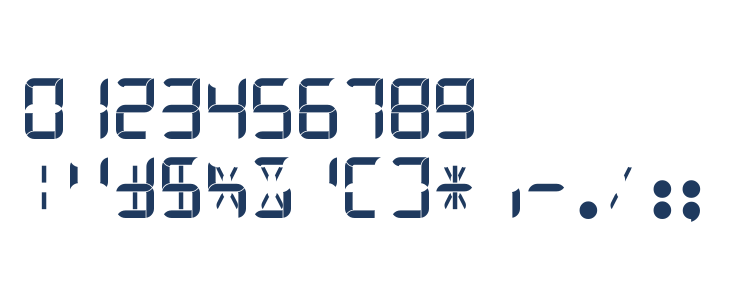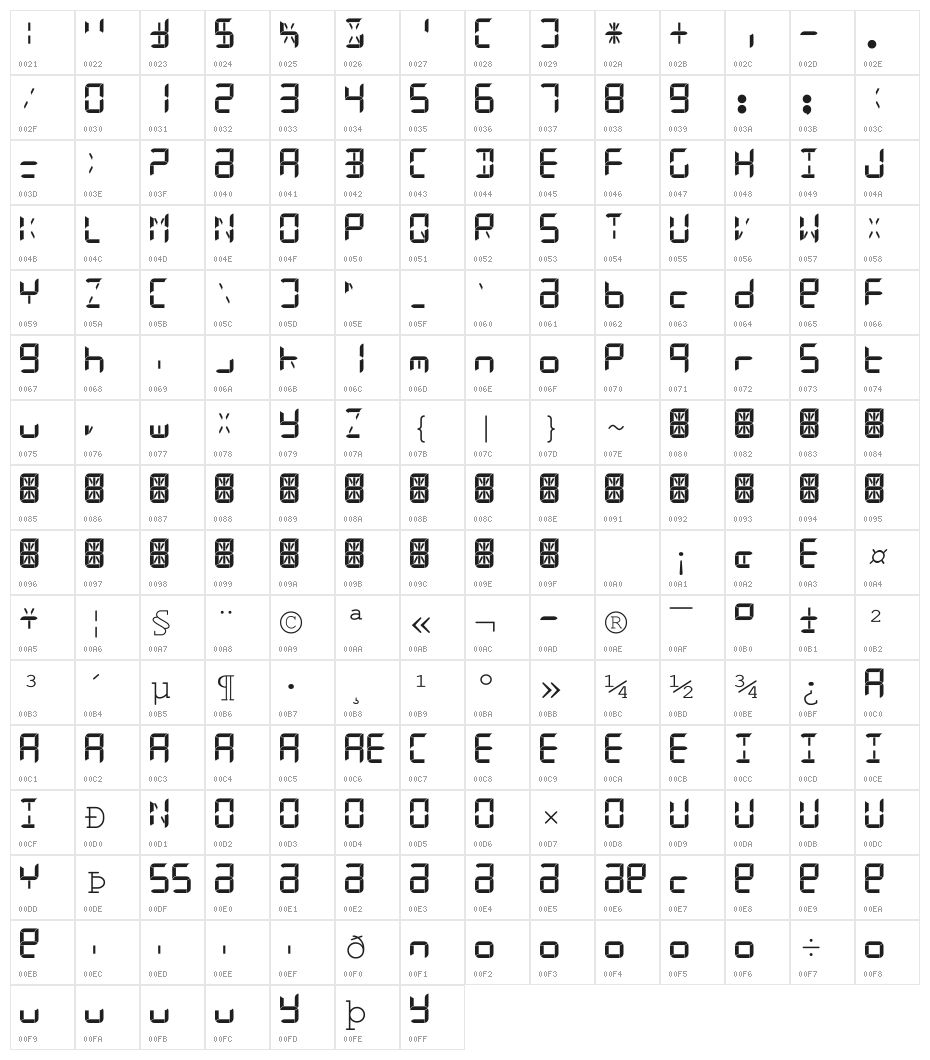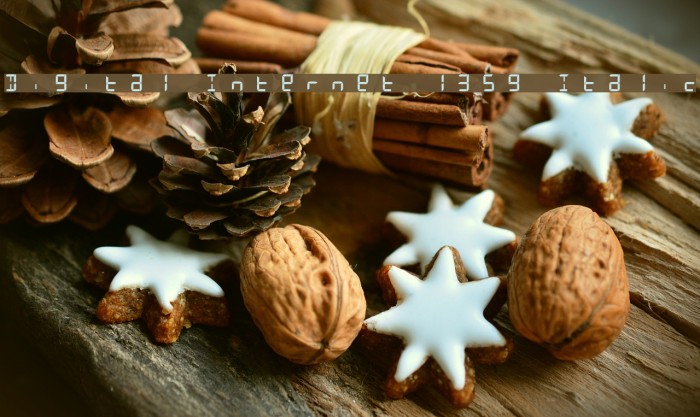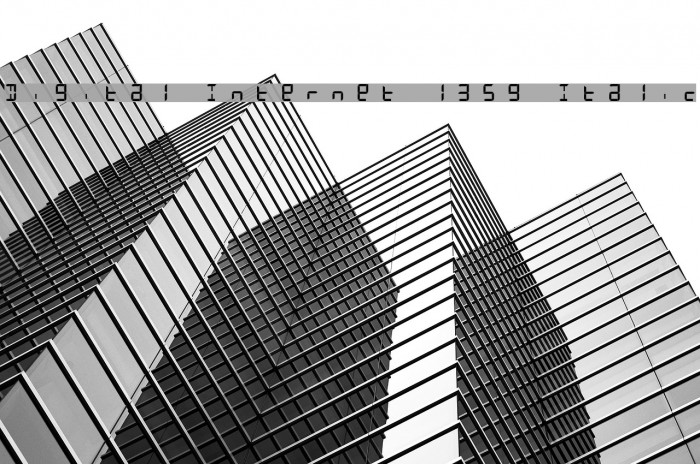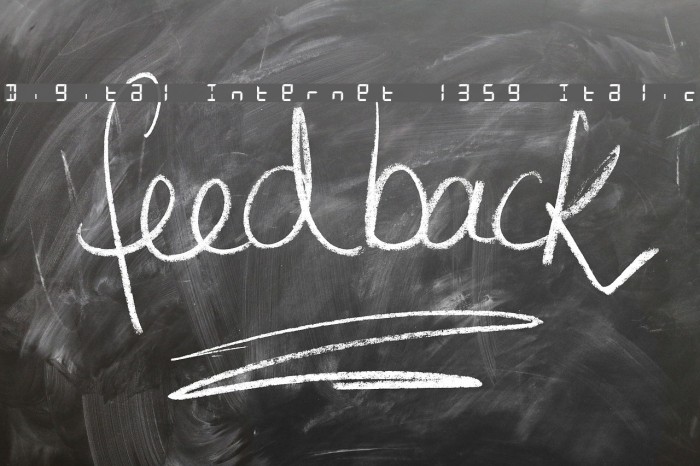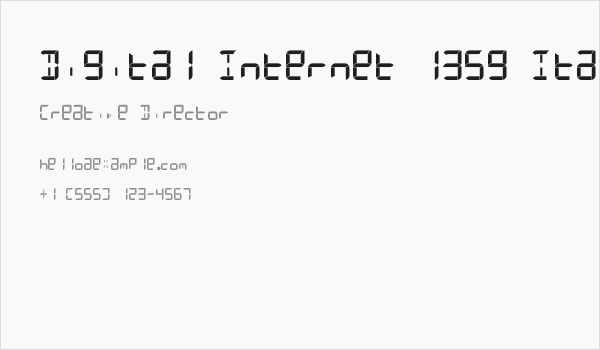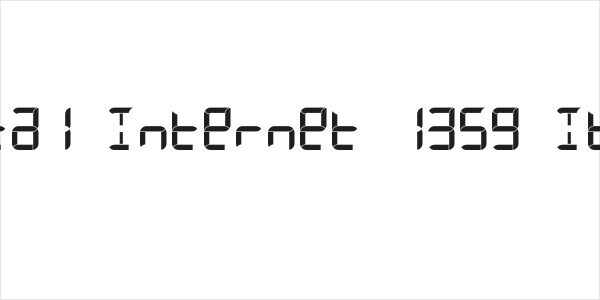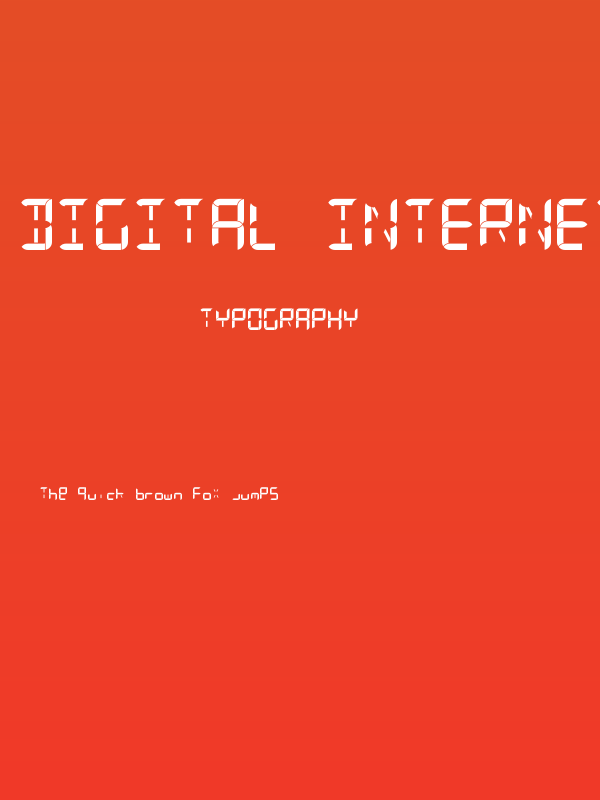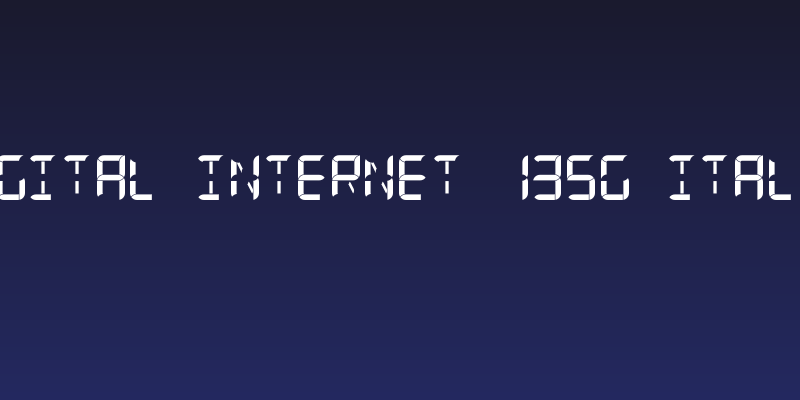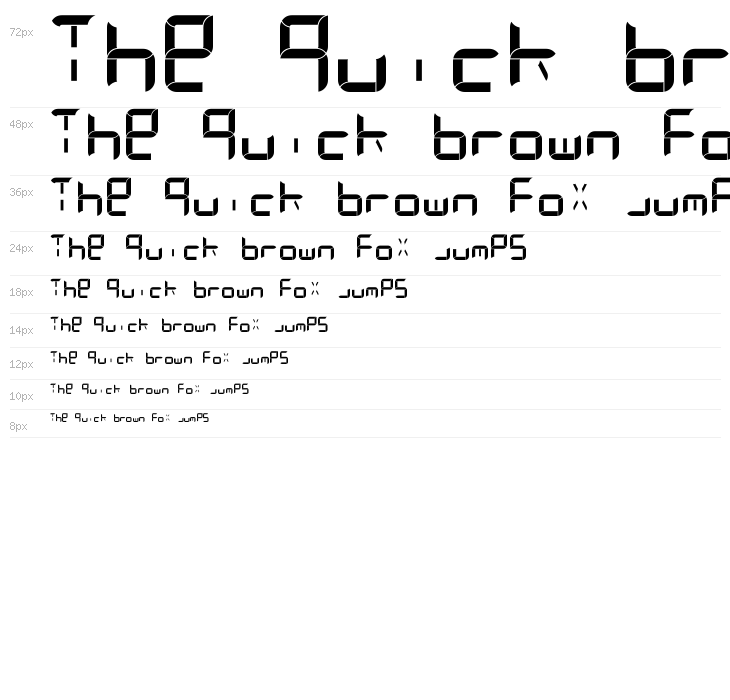
Digital Internet 13sg Italic Font
Digital Internet 13sg Italic Description
This font features a futuristic and digital aesthetic, reminiscent of classic digital displays. The characters are composed of geometric shapes with sharp angles and a consistent stroke width, giving it a modern and technological feel. The design is clean and minimalistic, with a slight italic slant that adds a dynamic touch. The uppercase and lowercase letters maintain a uniform style, while the numerals and special characters are designed to match the overall theme. This font is ideal for projects that require a contemporary and digital look, such as tech-related branding or digital interfaces.
| Proposed Projects | Ideal for tech branding, digital interfaces, and modern design projects. |